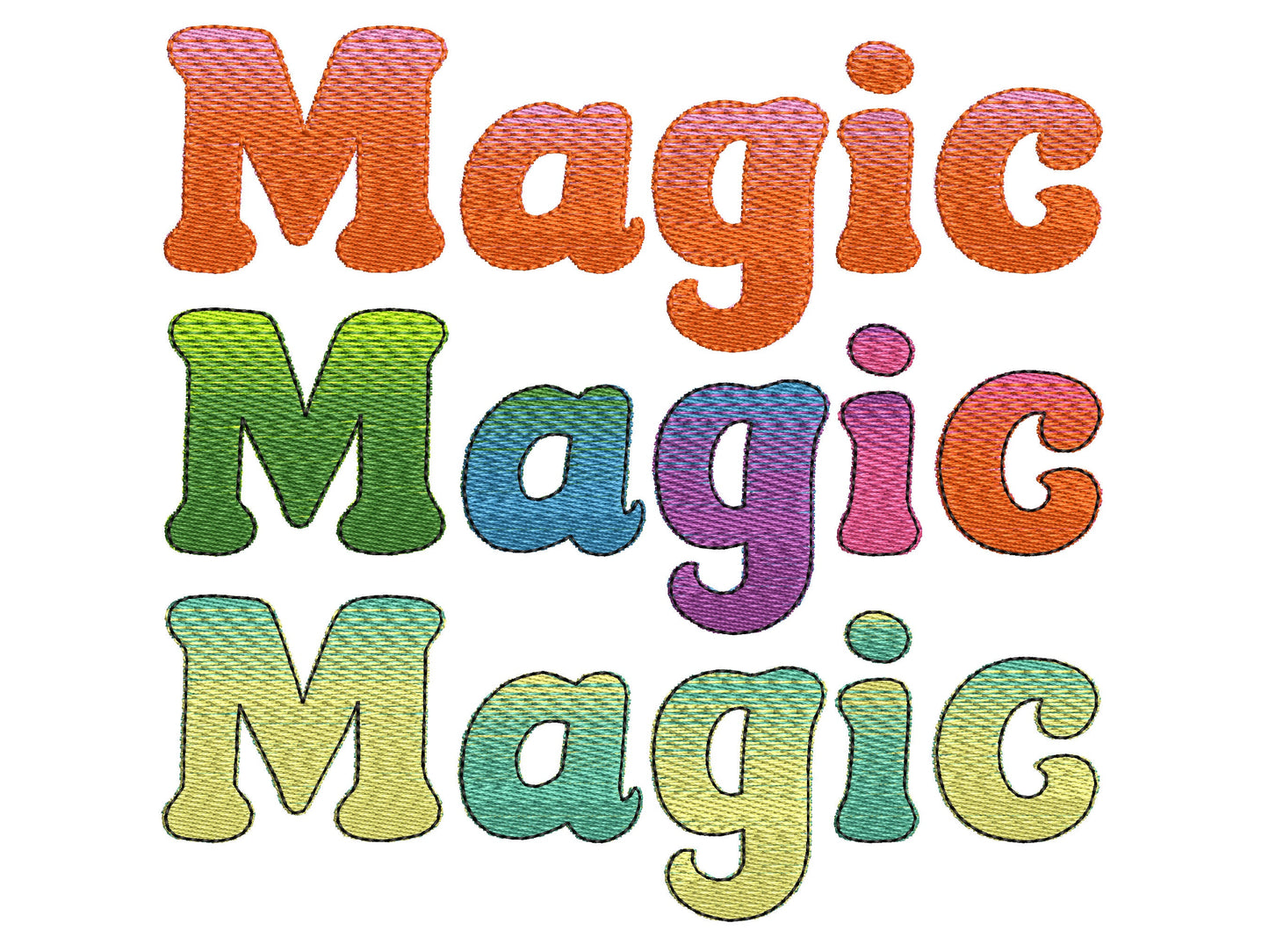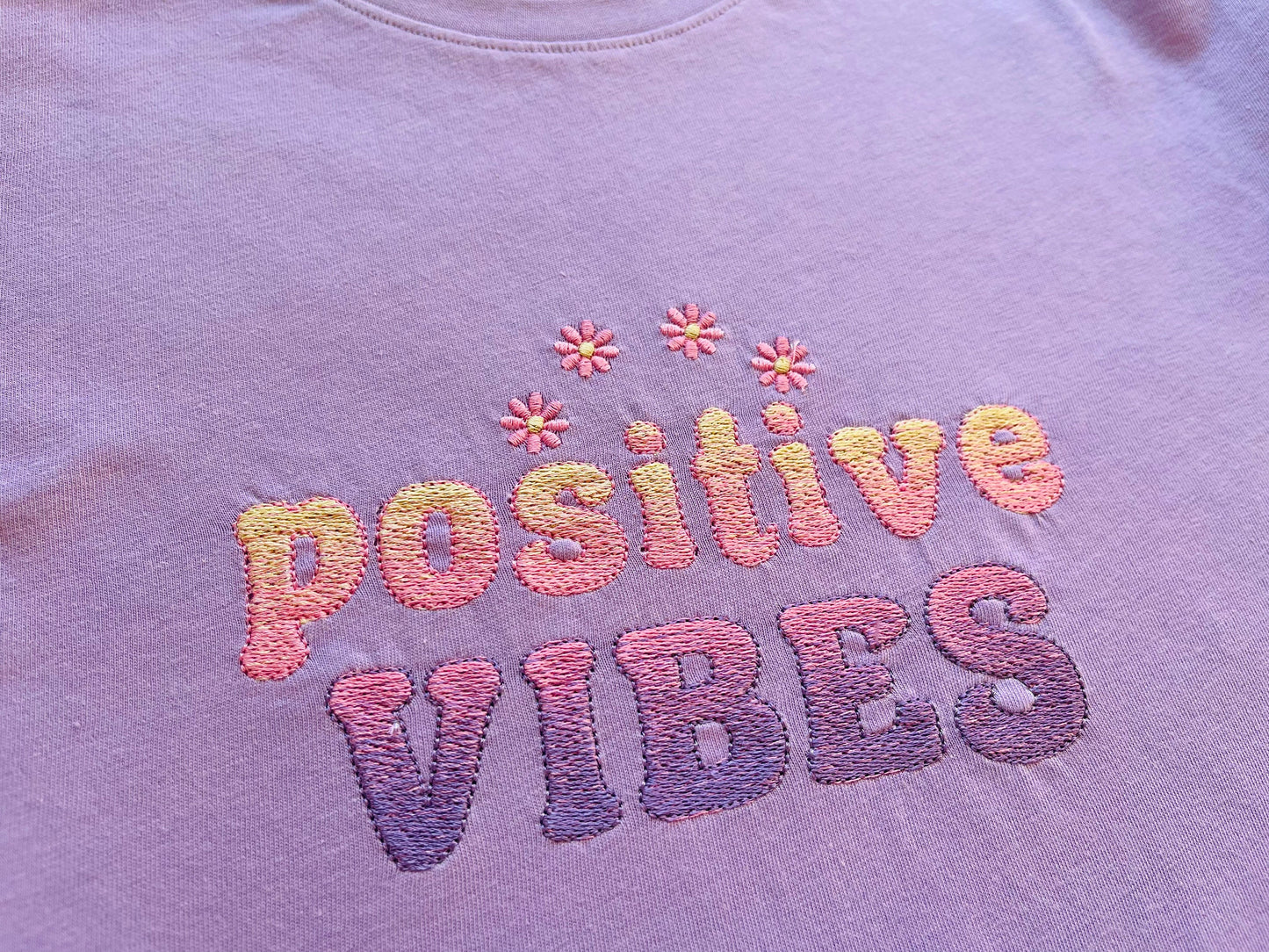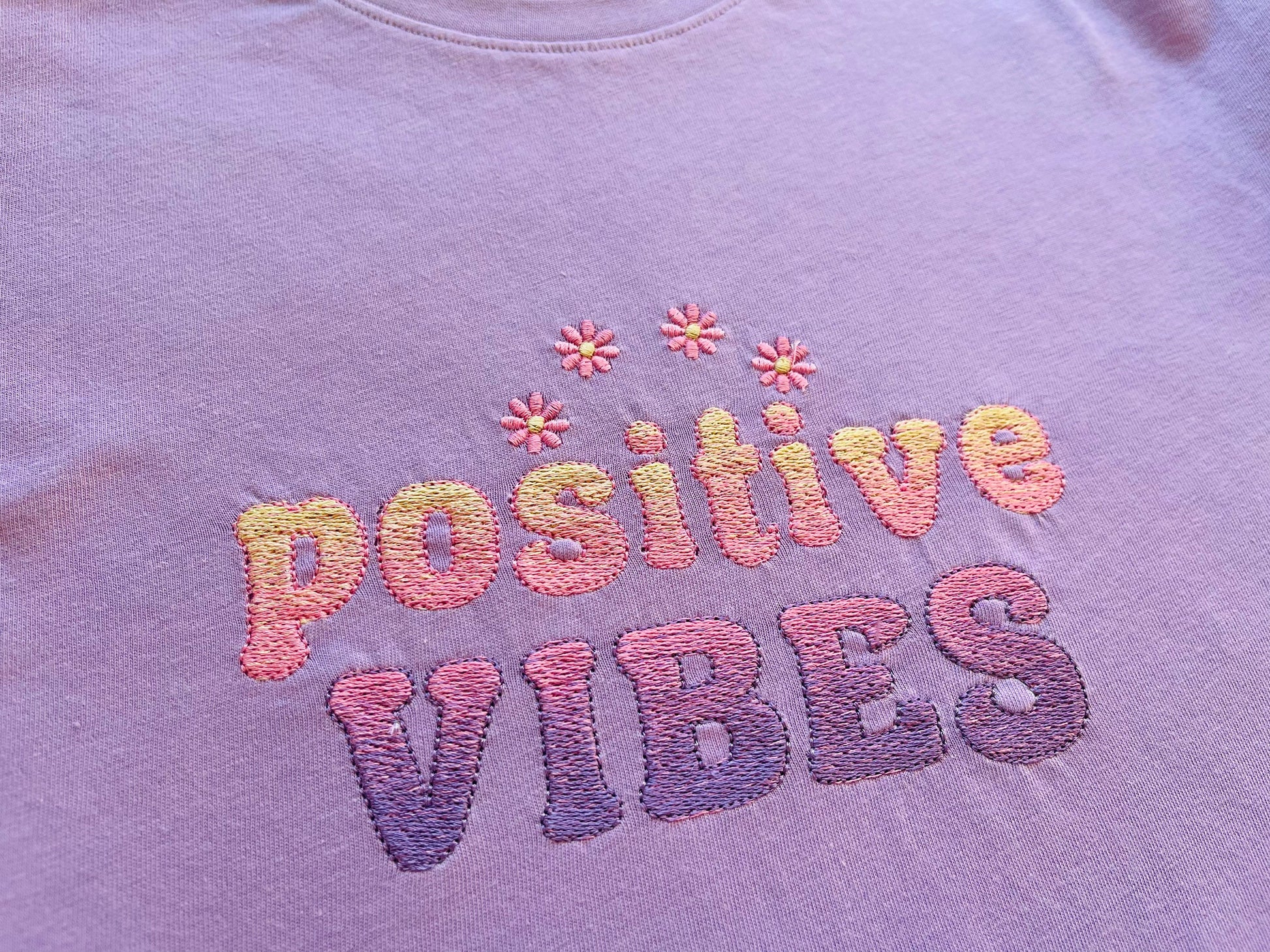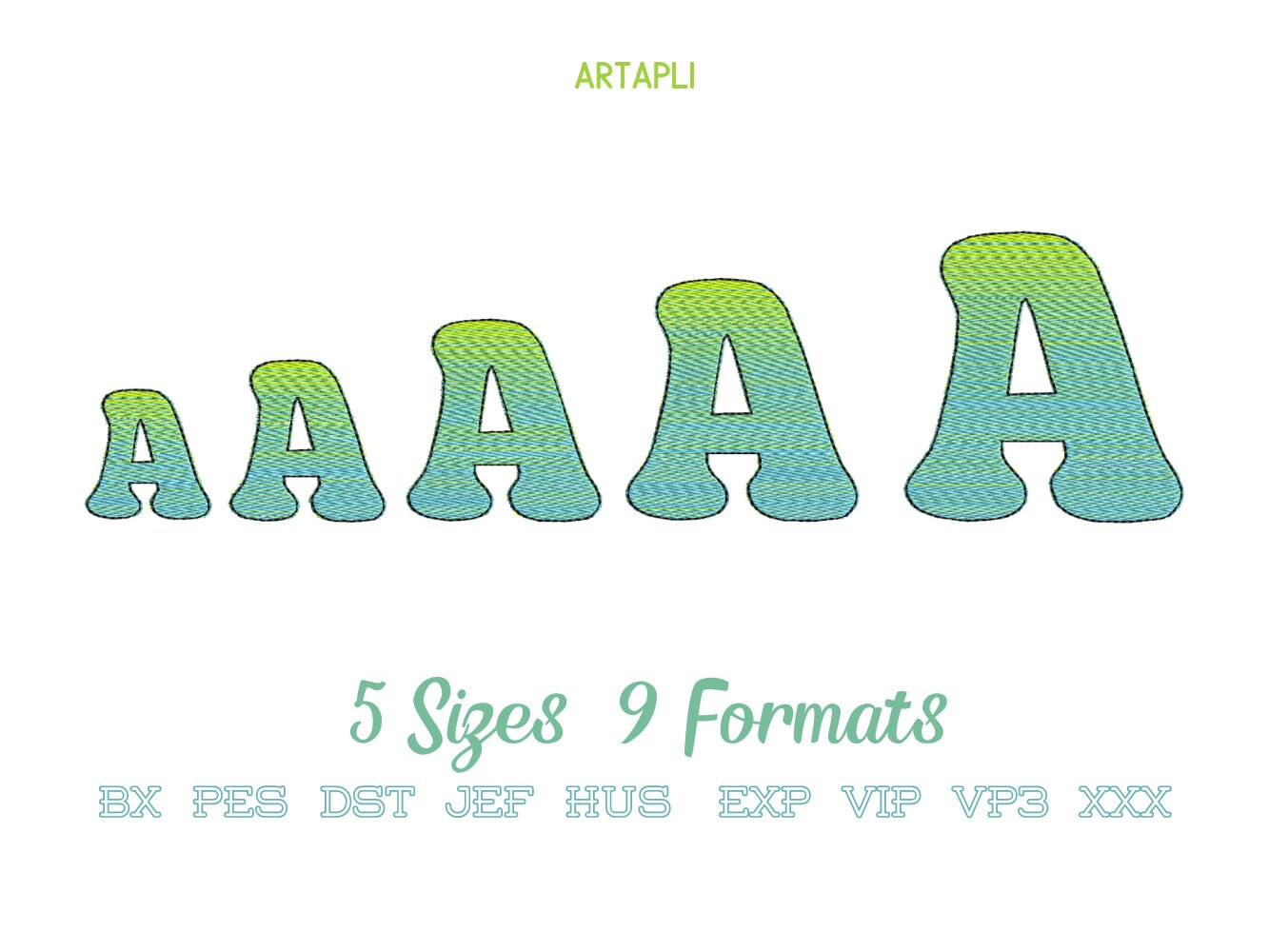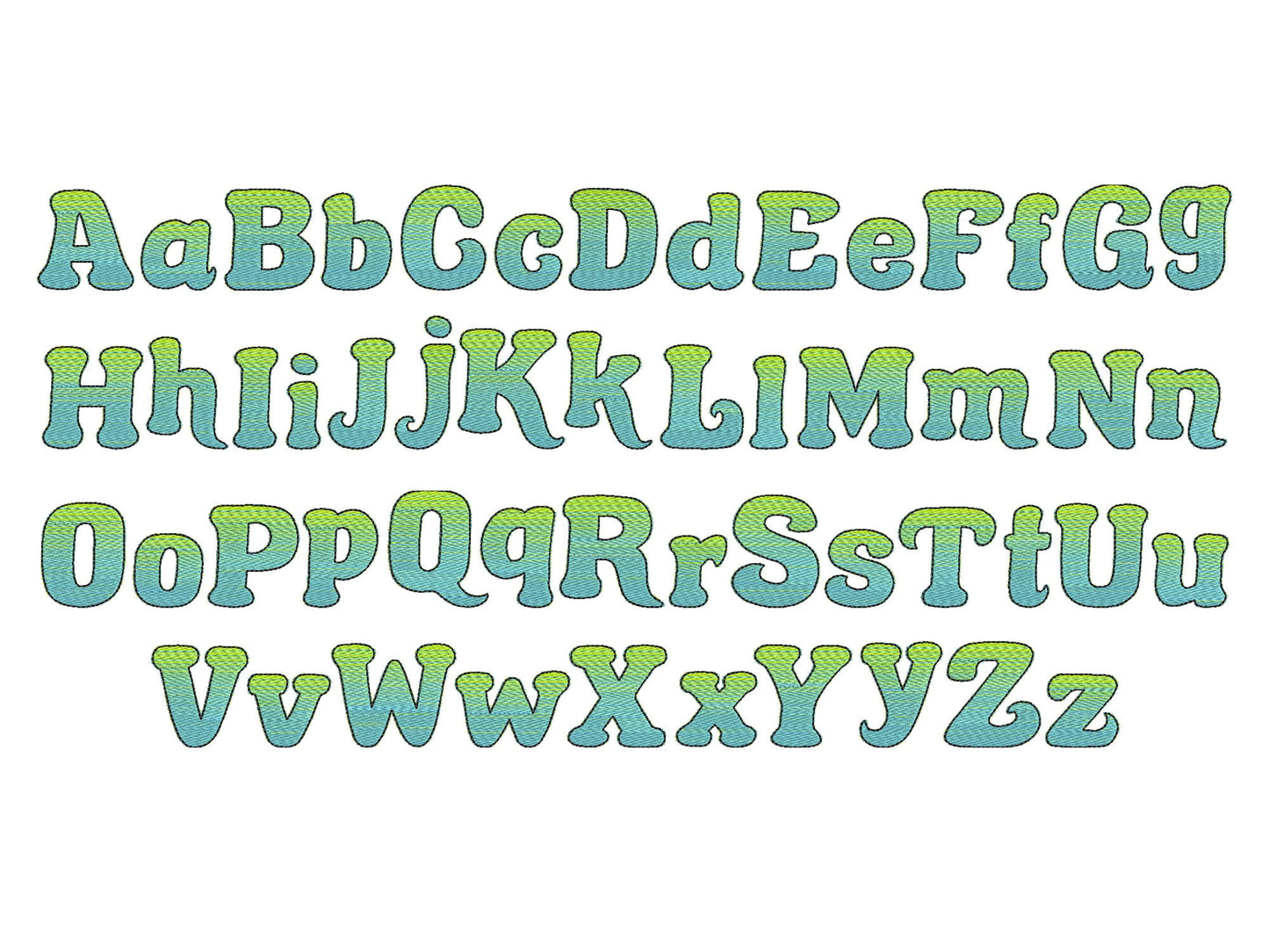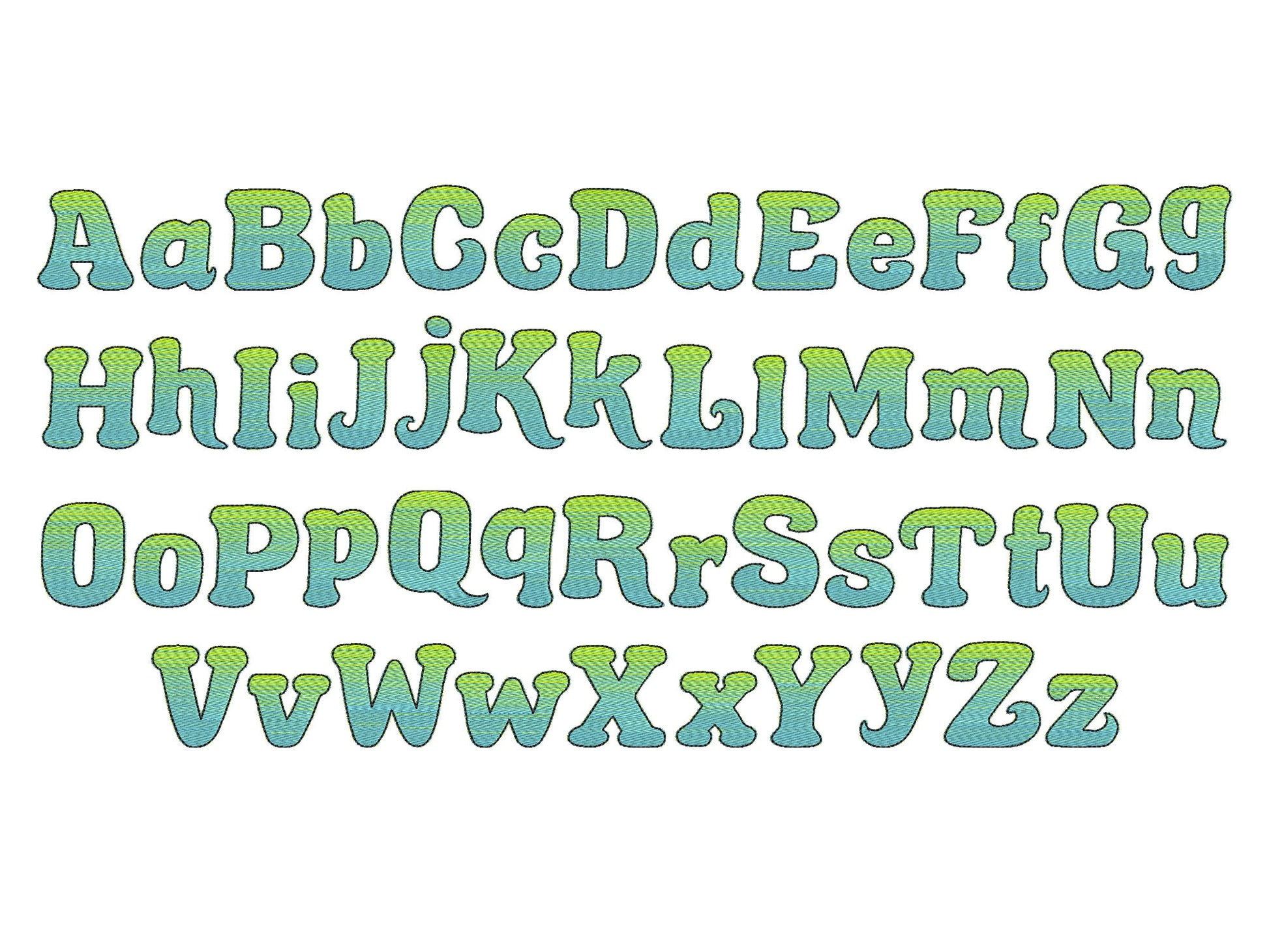
Awesome Iridescent Ombre Font
Stitch one color, then the second, then the outline, and play with color pairs as you like. Uppercase and lowercase letters in five sizes: 1.3, 1.6, 2, 2.5 and 3 inches.
- Iridescent 2-color font with outline
- Uppercase and lowercase letters
- 5 sizes, 1.3 to 3 in